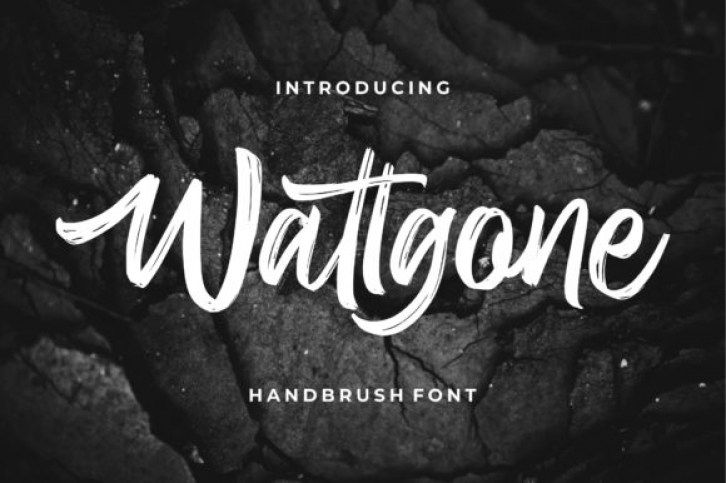
Wattgone is a stylish and modern handwritten font with an incredibly urban feel. Use this gorgeous and unique display font to bring any DIY project to life!